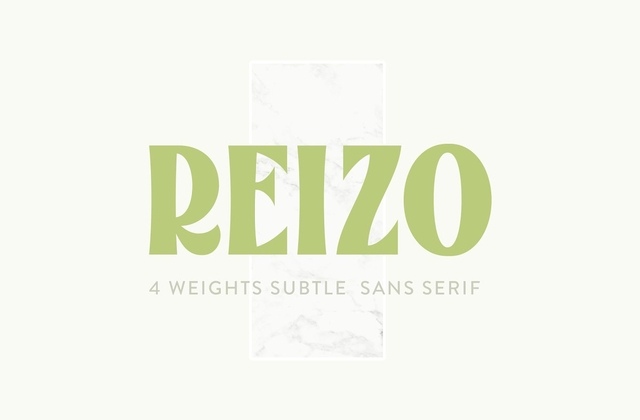
Reizo Font
Reizo Font is perfect for modern Japanese restaurants, contemporary sushi bars, minimalist tech startups, zen meditation centers, architectural design firms, and sleek product packaging. Its refined character makes it ideal for electronics brands, automotive companies, luxury sake breweries, modern art galleries, high-end fashion labels, and any project requiring sophisticated simplicity with Japanese aesthetic principles and contemporary global appeal.
This font is exciting because it seamlessly blends traditional Japanese design philosophy with cutting-edge contemporary functionality, creating letterforms that embody the essence of modern minimalism while respecting cultural heritage. The precisely balanced characters reflect the Japanese concept of perfection through restraint, delivering typography that speaks to audiences appreciating refined elegance, technological innovation, and the timeless beauty of purposeful design.
The Reizo Font family typically includes Light, Regular, Medium, and Bold weights with clean alternates, minimalist ligatures, and subtle decorative elements that enhance its sophisticated personality. This comprehensive collection enables designers to create harmonious brand systems that maintain Japanese aesthetic values while providing versatility for various international applications requiring cultural sensitivity and modern market appeal.
Whether you're developing identity systems for technology companies, creating packaging for premium Japanese products, or designing materials for contemporary cultural institutions, Reizo Font Free Download delivers the refined elegance and cultural sophistication that resonates with global audiences. Its balanced presence ensures professional impact across digital platforms and print materials, making it perfect for websites, mobile applications, and brand communications that celebrate Japanese craftsmanship, technological innovation, and the powerful simplicity of modern design with authentic cultural respect and contemporary international relevance.